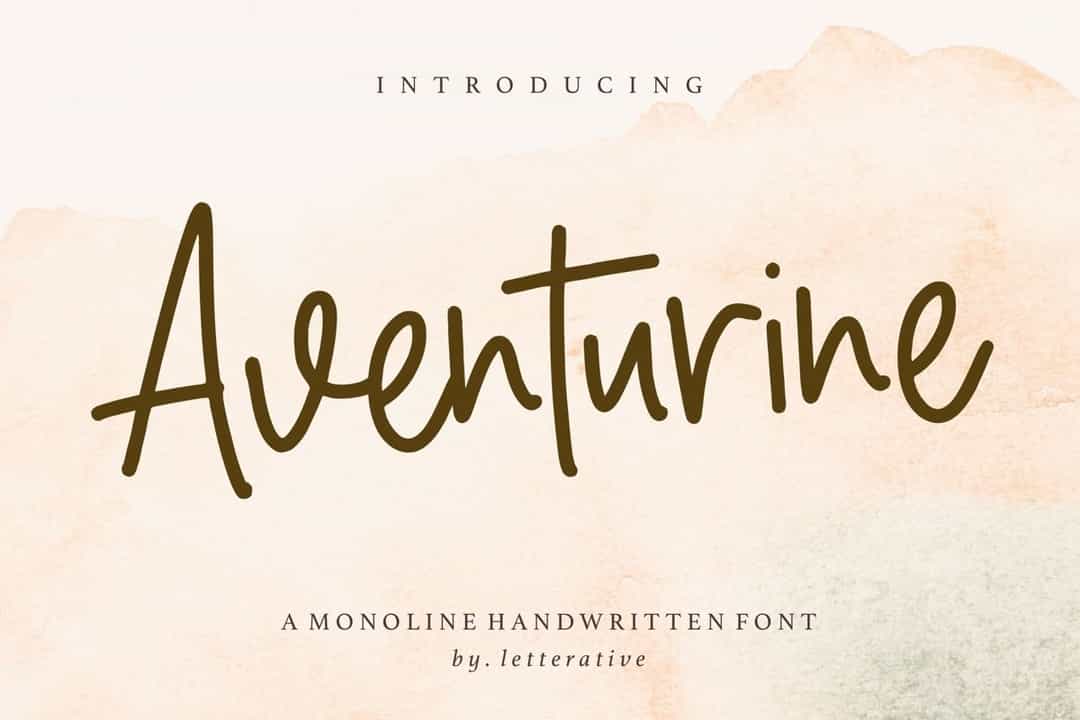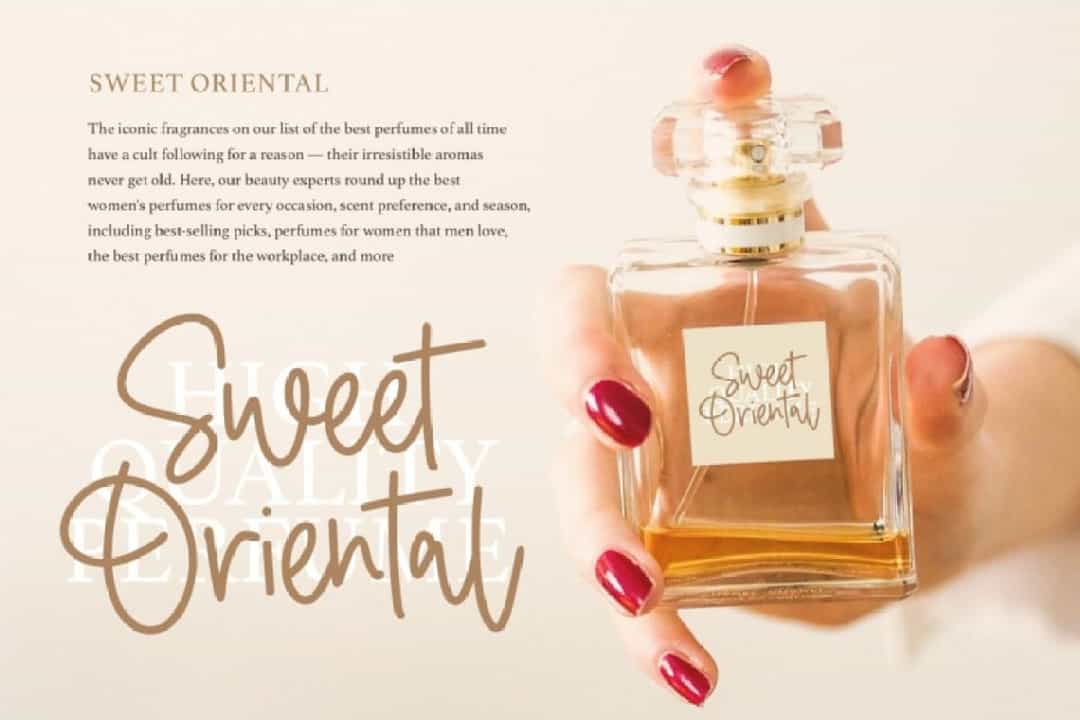
Aventurine is a beautiful display monolinear handwritten font. Great for any design, branding, and anything that you want to convey a message! Every letter has a unique and creative look to it, so that you can add some life and energy into your work!